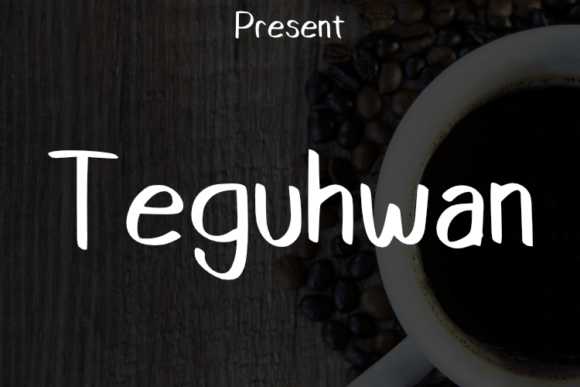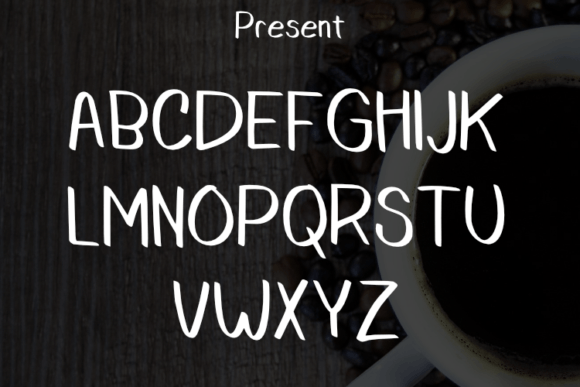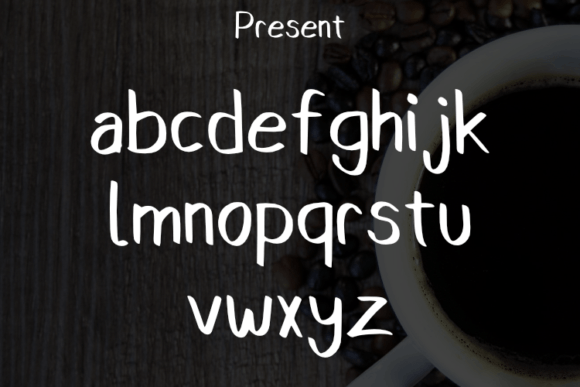
Teguhwan Font
About Teguhwan Font
Teguhwan is a sophisticated handwritten typeface characterized by its simplicity and modern aesthetic. Its clean lines and contemporary look make it an excellent choice for various design applications. This versatile font is particularly well-suited for creating elegant and luxurious logos, designing book or movie titles, fashion brands, magazines, clothing items, quotes, and more.
The understated elegance of Teguhwan lends a touch of sophistication to any project it graces. Whether you’re working on branding materials for high-end products, designing a chic fashion magazine, or crafting a stylish quote for social media, this font adds a sense of refinement and class.
Teguhwan’s simple yet stylish design allows it to seamlessly blend into different design contexts, enhancing the overall visual appeal of your projects. Its modern look makes it suitable for both digital and print applications, ensuring that your designs have a contemporary edge.
Embrace the elegance and modernity of Teguhwan in your creative projects, and let its sleek style elevate your designs. Whether you’re creating a logo for a luxury brand or designing titles for a fashion magazine, this font is sure to add a touch of sophistication and sophistication to your work, making it visually striking and memorable to your audience.